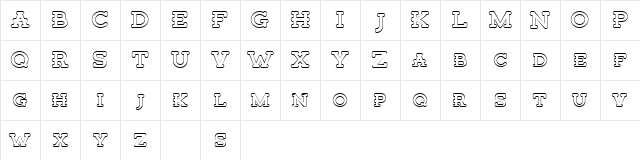
Tigreal Free Outline Regular
Design Context for Tigreal Free Outline Typeface
Tigreal Free Outline brings ornamental detail and strong personality to headlines and identities, where visual impact matters more than quiet functionality.
Font Pairing: Pair with a clean neutral sans-serif for body copy to let Tigreal Free Outline's character lead without overwhelming the composition.
Pro Tip: Use Tigreal Free Outline exclusively at display sizes — it was designed to be seen, not read at length. Let a neutral companion handle body copy.